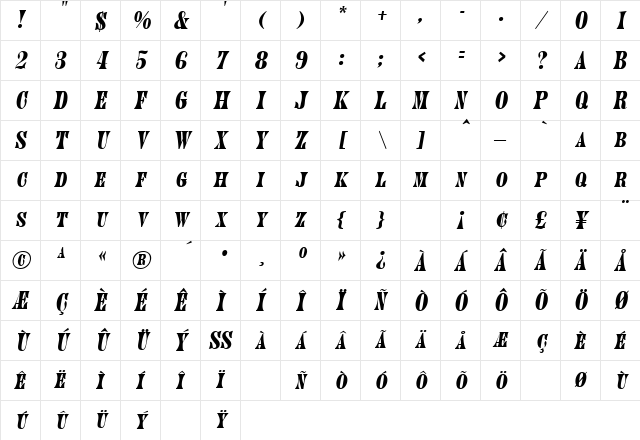
Paddock Oblique
Design Context for Paddock
Paddock is a composed and adaptable typeface that performs quietly and consistently across a wide range of design contexts. The slanted form adds forward momentum and visual energy.
Pro Tip: Use Paddock for emphasis, pull quotes, and subheadings where its slanted energy can add rhythm to the layout.